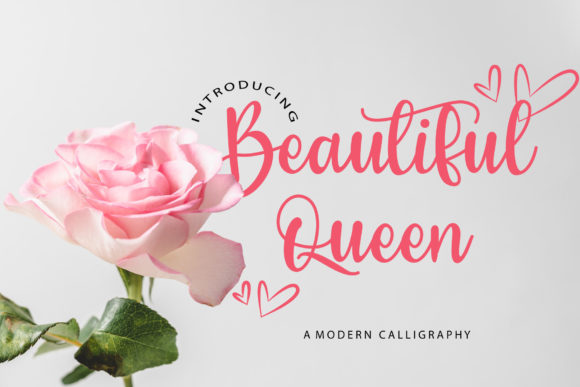
Unleash the captivating elegance of Beautiful Queen, a script font that will transform your designs into captivating masterpieces. Each character gracefully flows across the baseline, like a symphony of ink strokes. Picture invitations adorned with an enchanting allure, branding that exudes sophistication, and social media posts that steal the spotlight. Beautiful Queen isn't just a font; it's the key to unlocking your creative potential.
Indulge in the mesmerizing curves and delicate flourishes that define this exquisite script. Its enchanting charm is perfect for crafting heartfelt birthday wishes or adding a touch of whimsy to your designs. Whether you're a seasoned designer or just starting your creative journey, Beautiful Queen will effortlessly elevate your projects to new heights.
Imagine the joy of creating personalized greeting cards that convey your warm wishes with an unforgettable touch. Picture the delight on your friends' and family's faces as they receive handwritten notes penned in this captivating script. Beautiful Queen empowers you to express your emotions with an artistry that transcends words.
But its versatility doesn't end there. This enchanting font also lends an air of sophistication to branding and marketing materials. Create logos that command attention, design brochures that leave a lasting impression, and craft website content that captivates your audience. Beautiful Queen's elegant touch will elevate your brand to new levels of professionalism and style.
With Beautiful Queen, the possibilities are boundless. Explore the depths of your creativity and let your designs flourish with a touch of magic. Prepare to be amazed as your projects take on a life of their own, captivating hearts and leaving an unforgettable mark on the world.